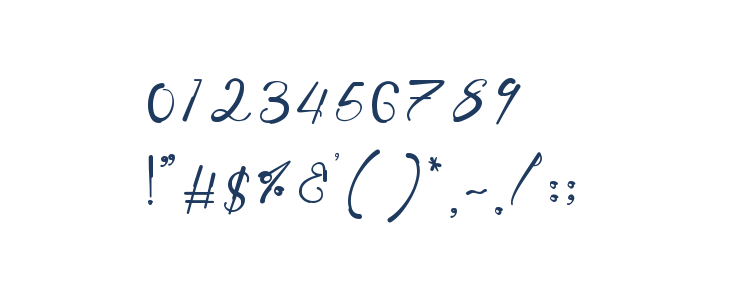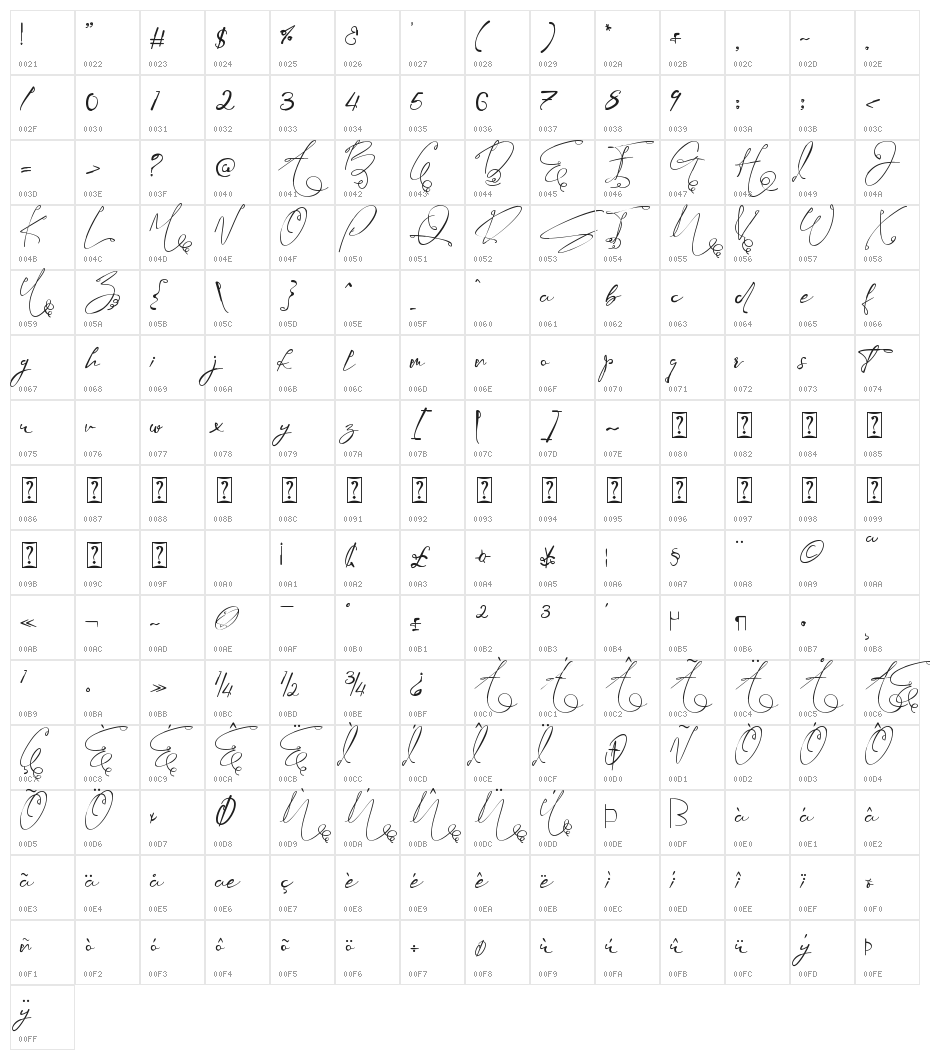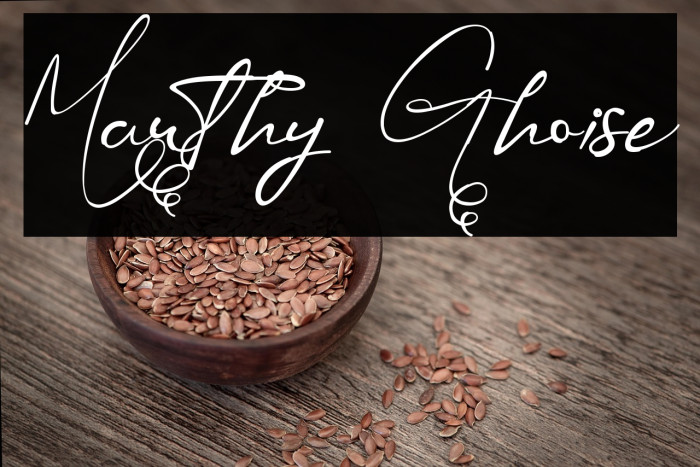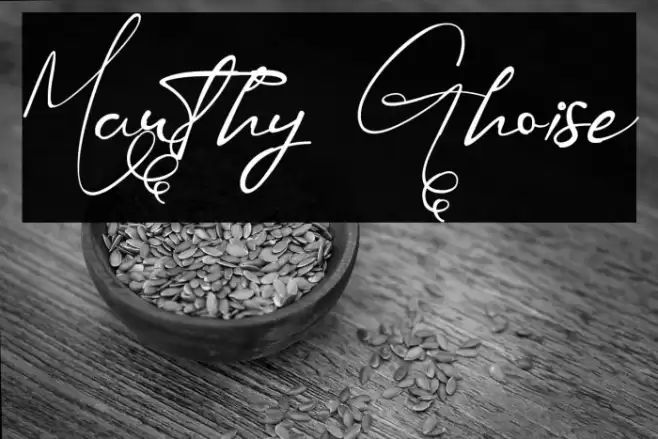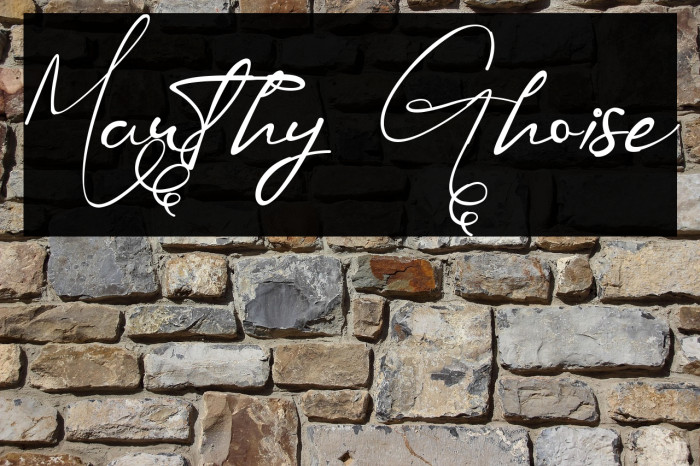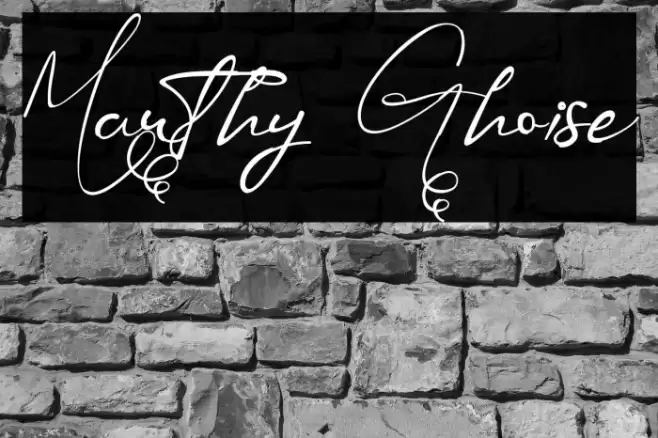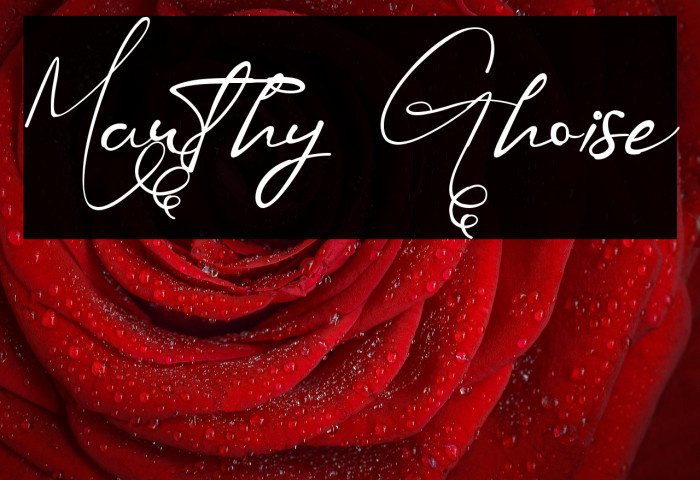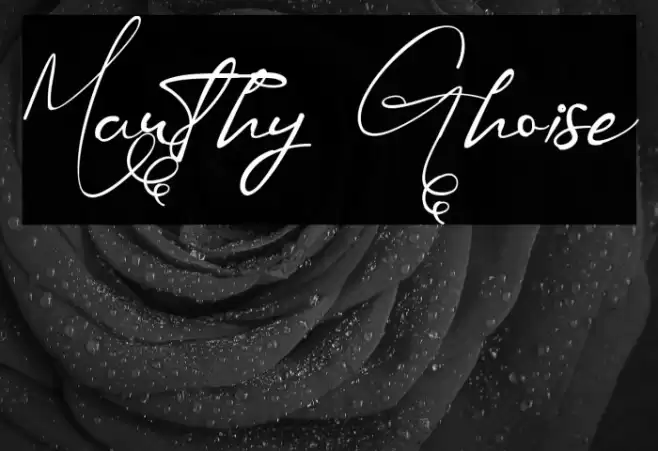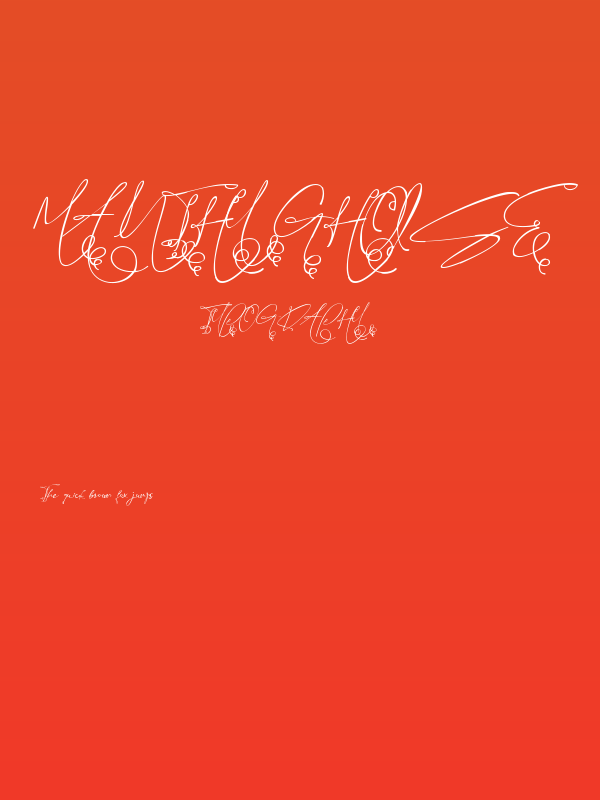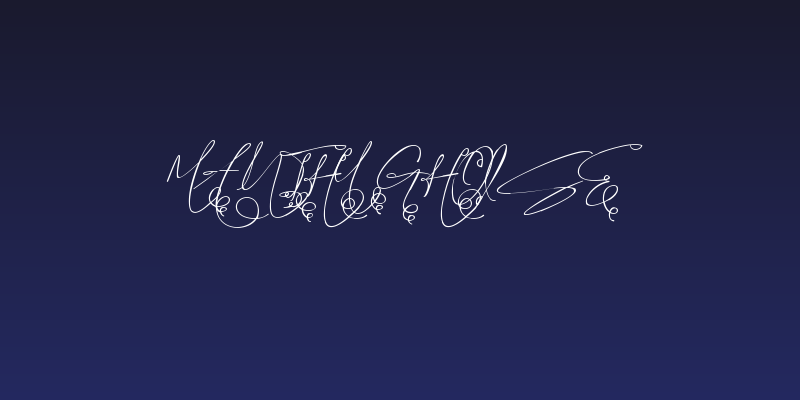
Mauthy Ghoise Font
Mauthy Ghoise Description
This font features an elegant and flowing script style, characterized by its intricate loops and swirls. The uppercase letters are particularly ornate, with elaborate flourishes that give them a sophisticated and artistic appearance. The lowercase letters maintain a consistent flow, with smooth curves and a slightly slanted orientation, enhancing the handwritten feel. Numbers and special characters are designed to match the overall aesthetic, with a playful yet refined touch. This font exudes a sense of creativity and elegance, making it ideal for projects that require a personal and artistic touch.
| Proposed Projects | Ideal for wedding invitations, greeting cards, personal branding, and artistic projects. |